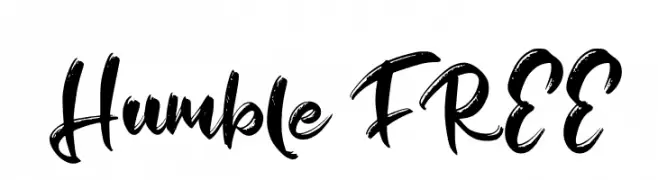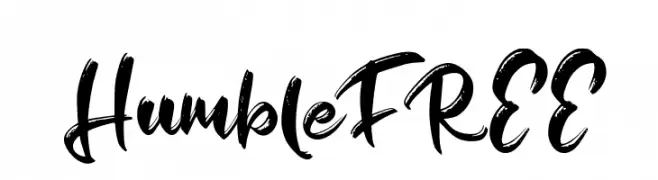
A bold, expressive handwritten font with a brush-like texture.
A bold, expressive script font with a hand-drawn, artistic style.
A playful, flowing script font with a handwritten charm.
An elegant script font with flowing, interconnected letters and high contrast strokes.
A bold, flowing script font with interconnected characters and a dynamic, elegant style.
A bold, expressive handwritten font with fluid strokes and a playful aesthetic.
A bold, playful handwritten font with dynamic, rounded strokes.